What Font Does IKEA Use?
IKEA is known around the world for its well-designed, low-cost furniture and household goods, and the blue and yellow IKEA logo has also become iconic. Learn all about the IKEA logo history, colours, font, and more.
What Font Does IKEA Use?
Let's start by answering the question: "What font does IKEA use?"
According to the IKEA website, the IKEA logo font is based on an extra-bold version of the Futura typeface, with tiny serifs added to the letters for extra clarity and readability.
IKEA Logo History
Did you know that the original 1951 IKEA logo was red because its founder, Ingvar Kamprad, thought the colour symbolised low prices?
Apart from a flirtation with brown in 1954 and a brief return to red in 1981, the IKEA logo has remained quite similar for decades, with the familiar blue-and-yellow colour scheme representing its Swedish origins. There have been a few minor tweaks, though—here's a graphical representation of the IKEA logo history.
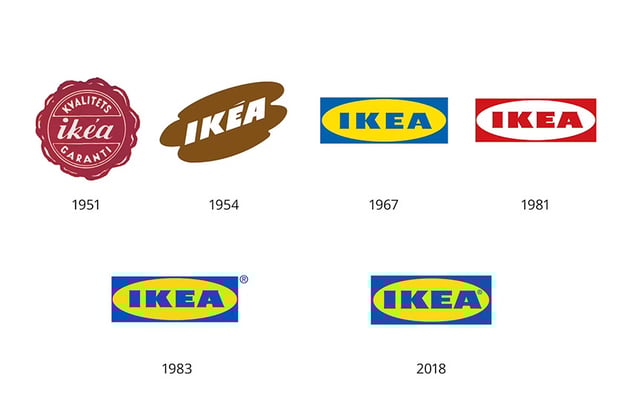
IKEA Logo Colors
We all know the basic IKEA logo colors: blue and yellow. But what if you want to match those colors more precisely? Here are the exact color codes, according to the Brand Color Code website:
IKEA Logo Font Alternatives
IKEA Sans is a proprietary font that's not generally available for the rest of us to use. But luckily there are some very close matches available on Envato. If you want to find a font that looks like the IKEA logo or any typefaces similar to Futura, try these excellent alternatives.
Nofex Expanded Sans Serif (OTF, TTF, WOFF)
Nofex is a great match for the IKEA font because of its bold style and expanded letterforms. This clean, elegant all-caps font has high contrast and great readability, and it comes with ligatures and alternates for extra versatility.
Quart Headline Typeface (OTF, TTF, EOT, SVG, WOFF)
Here's another bold display typeface that could be a great replacement for the IKEA font. Quart comes with both regular and outline versions, giving you plenty of interesting design possibilities for your logos or headlines.
Danson Sans Serif Font Family (OTF)
With ten different fonts included, Danson is a truly versatile font family. Danson Bold is the closest match to the IKEA logo font, but the lighter versions could be great for contrast in your subheadings and taglines.
Vaulto Extended Bold Sans Serif (OTF, TTF, WOFF)
Vaulto has a slightly stretched look and bold letterforms with a strong impact, which makes it a great match for the IKEA logo. Use it for your logo design or as a display typeface in magazine and website design projects.
Vancouver Gothic (OTF, TTF, EOT, WOFF)
As you can see, the letterforms in the Vancouver typeface have a slightly different shape from the IKEA logo font—they're more condensed than expanded. But we've included it because what it shares with the IKEA logo is a clean, simple design and a strong visual impact. Try it out!
Next Sphere (OTF)
Next Sphere is like an exaggerated version of the IKEA logo, with the letterforms extended even further to create a futuristic look. It's not an exact match, but it's a creative alternative that will give your designs a strong visual impact.
Visage Bold & Regular (OTF, TTF, WOFF)
Visage comes with two versions—bold and regular—so you can use the bold version for an IKEA-esque logo and the regular version for a tagline. It includes uppercase multilingual letters, numbers, and punctuation.
Sovereign Typeface (OTF, TTF)
With its bold, modern look and clean design, Sovereign Typeface can give your logo that iconic appeal of IKEA's. Try it on T-shirts, web banners, and more to see how it looks!
Conigen Modern Sans Serif (OTF, TTF, WOFF)
Conigen gives you 12 different styles, so you have lots of flexibility to work with. Try the Black version for the closest match to the chunkiness of the IKEA font, but also experiment with the others to see how they can complement each other.
Frank (OTF, TTF, WOFF, WOFF2, EOF)
Frank's designers trace its inspiration to DIN, Eurostile, and Futura, and it's the Futura link that accounts for its similarity to the IKEA logo. With 300+ glyphs, along with five different weights in normal, oblique, and rough styles, you can let your creativity run wild.
In this article, we gave a comprehensive answer to the question: "What font does IKEA use?" We took a brief look at the IKEA logo history and went through some similar fonts that you can download and use right away.